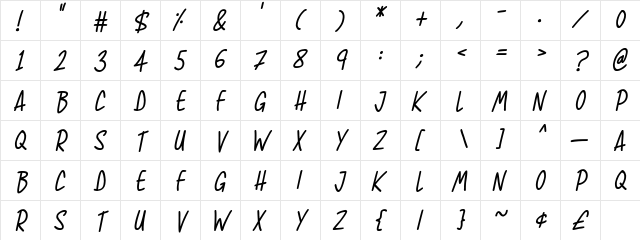
Super Sunrise Italic
Design Context for Super Sunrise Typeface
Super Sunrise offers clean, dependable letterforms without strong stylistic allegiance, making it a practical choice for designers who need flexibility. Its italic angle brings a sense of urgency and motion to the letterforms.
Pro Tip: Use Super Sunrise for emphasis, pull quotes, and subheadings where its slanted energy can add rhythm to the layout.